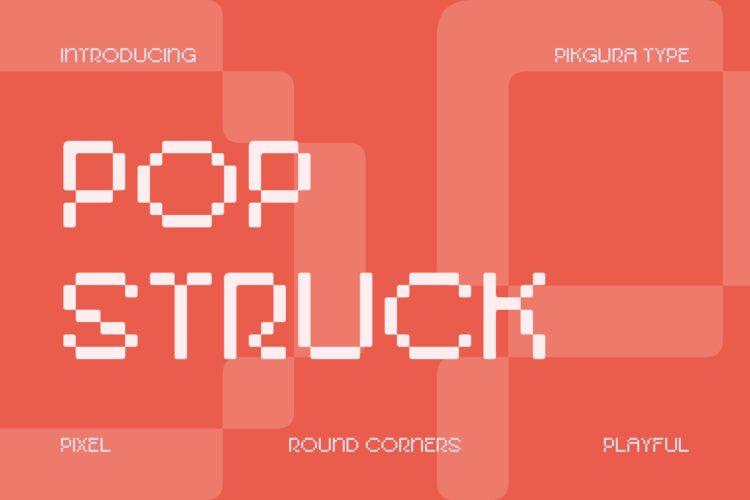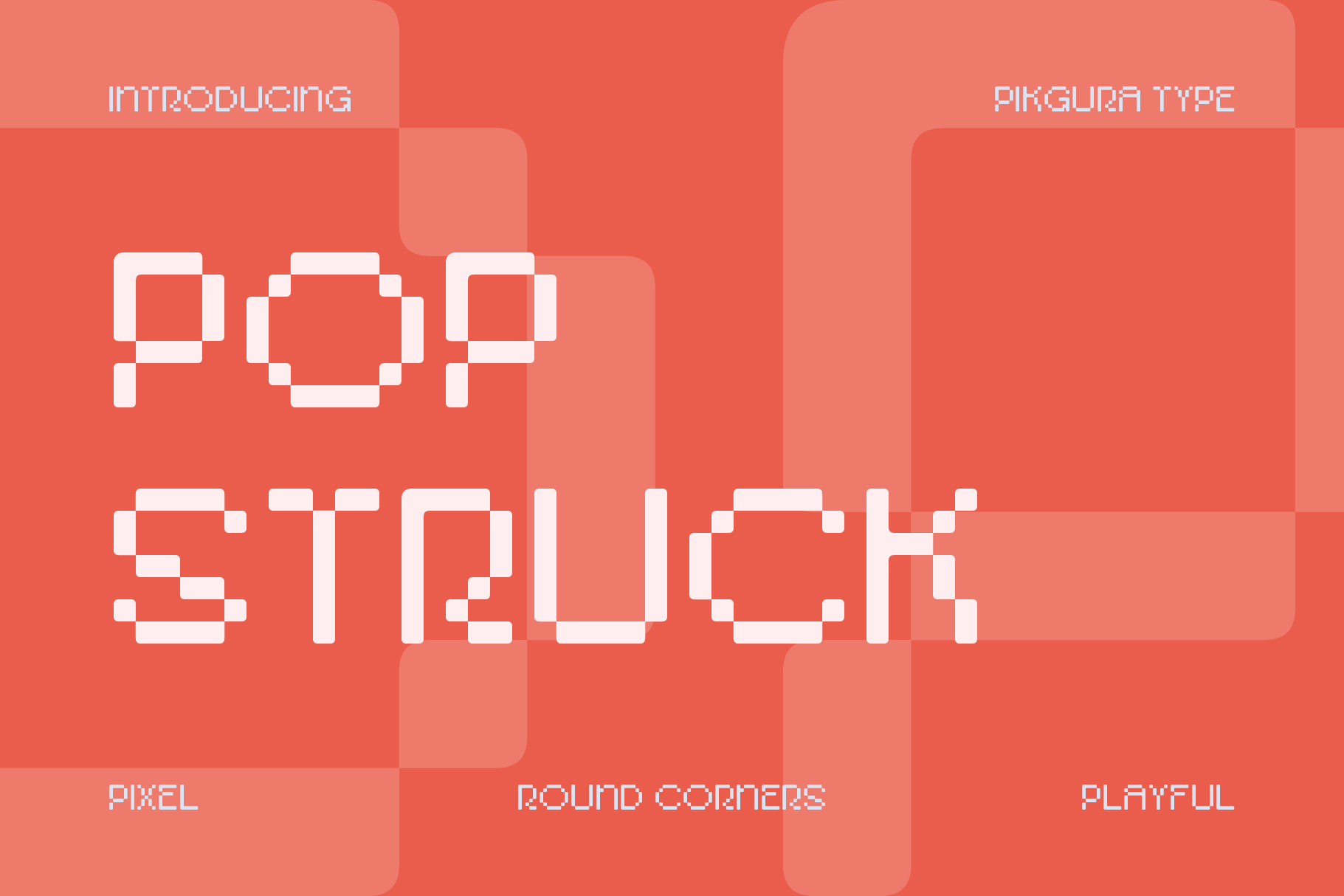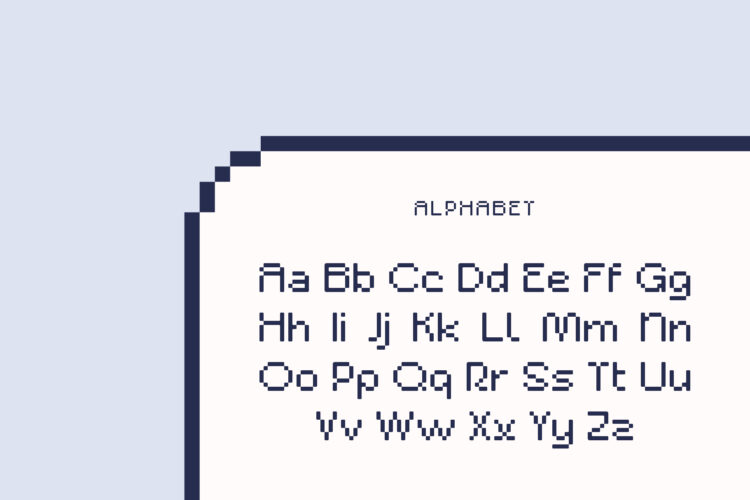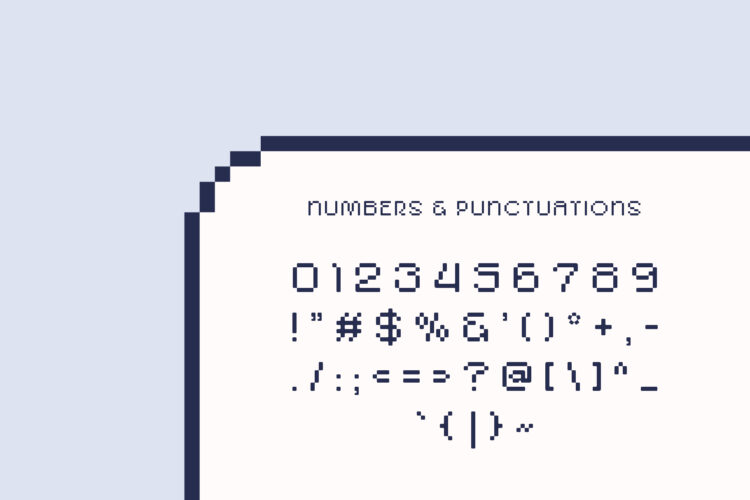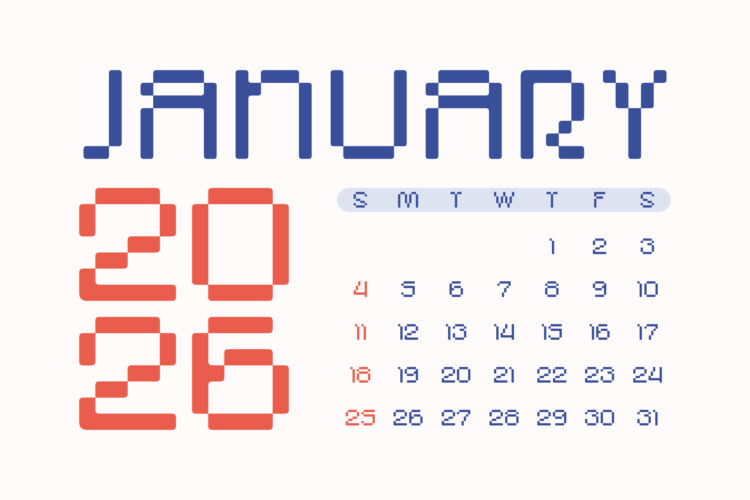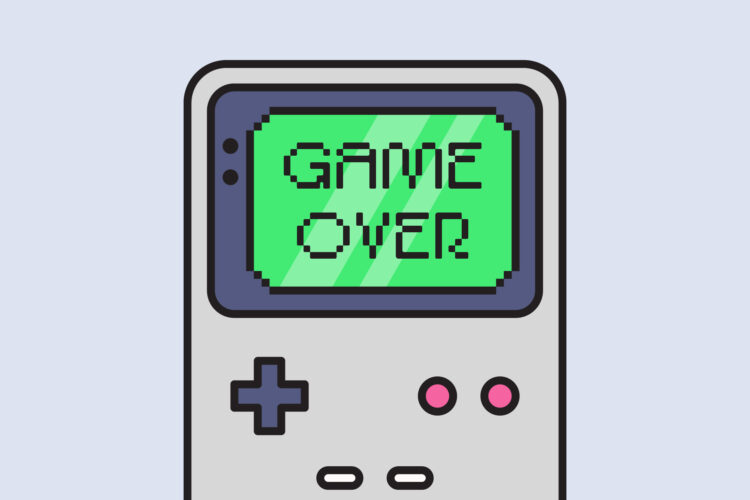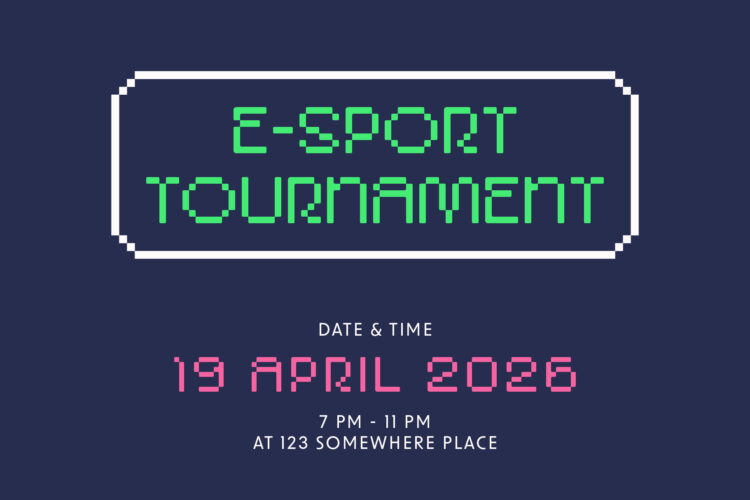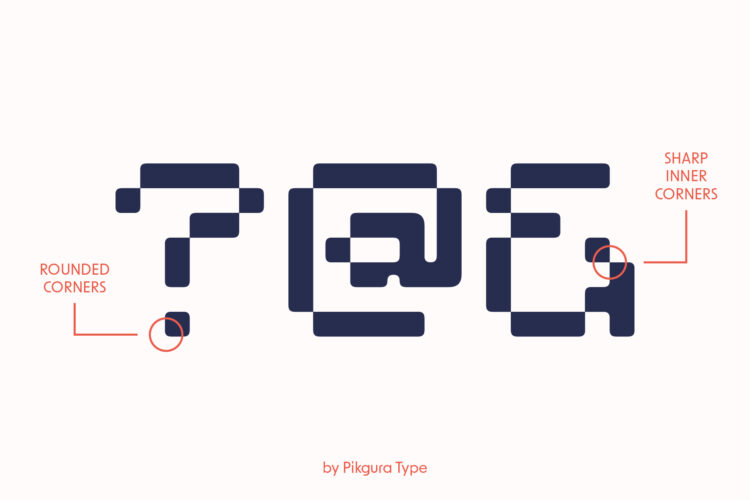
Pop Struck
Pop Struck is a playful pixelated display font with soft rounded edges and a bold retro feel. Made to make your designs more fun, unique, and instantly stand out.
Perfect for branding, posters, packaging, merchandise, social media, gaming visuals, and other creative projects.
Add a fun pixel touch to your designs with Pop Struck.
Pop Struck – Pixel Font